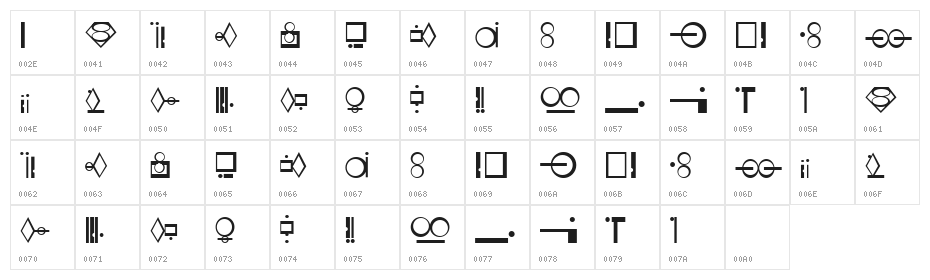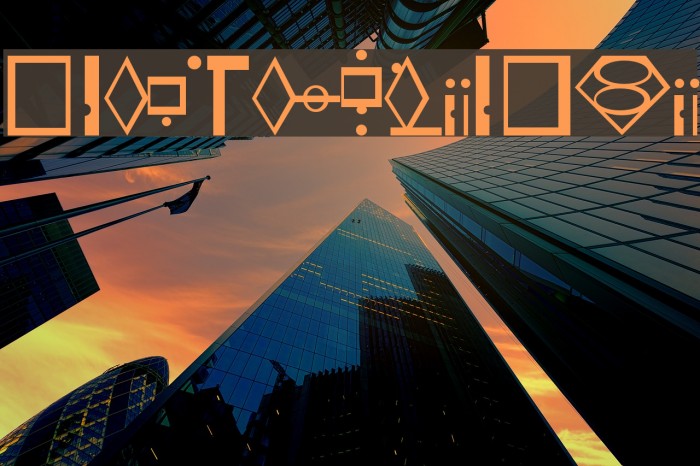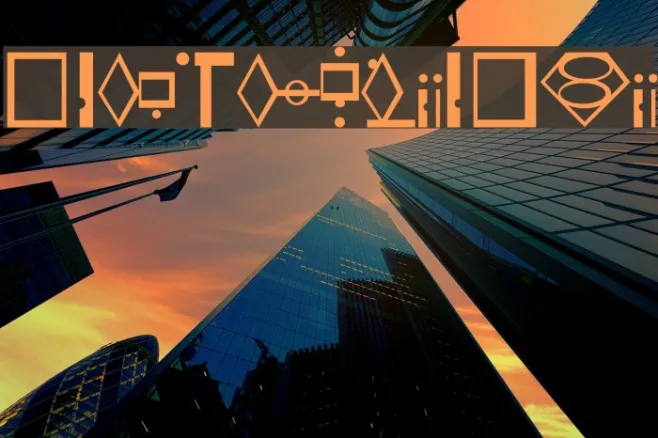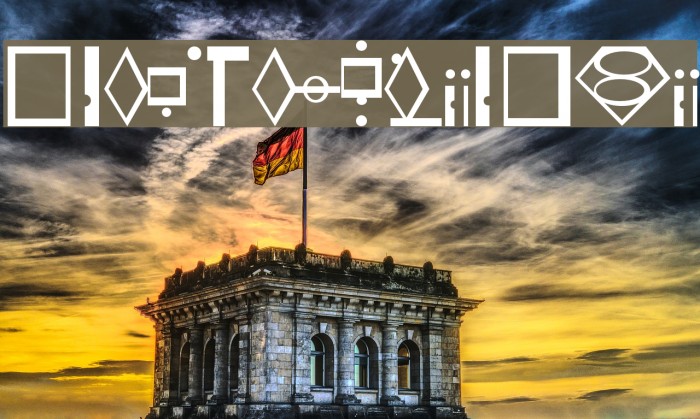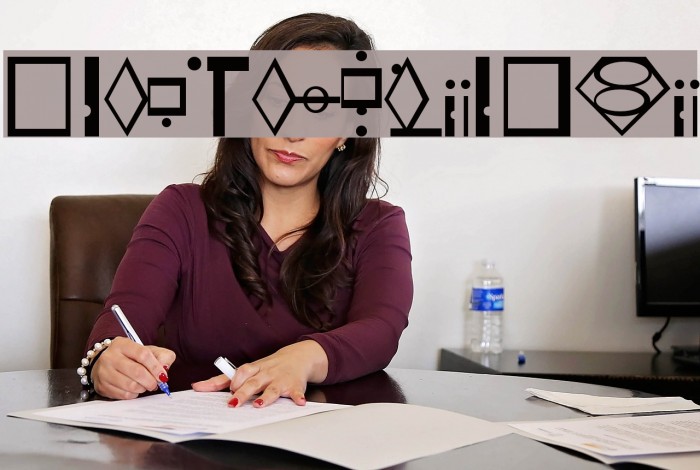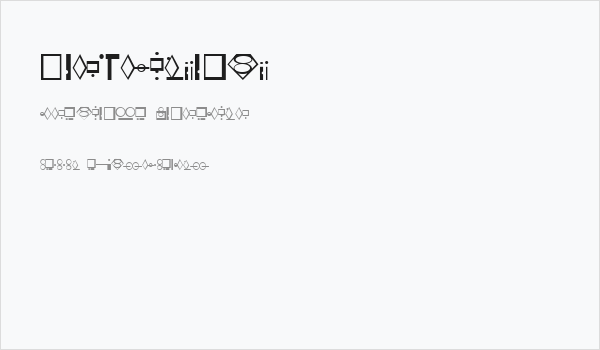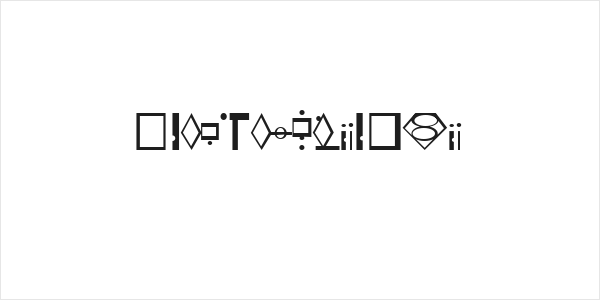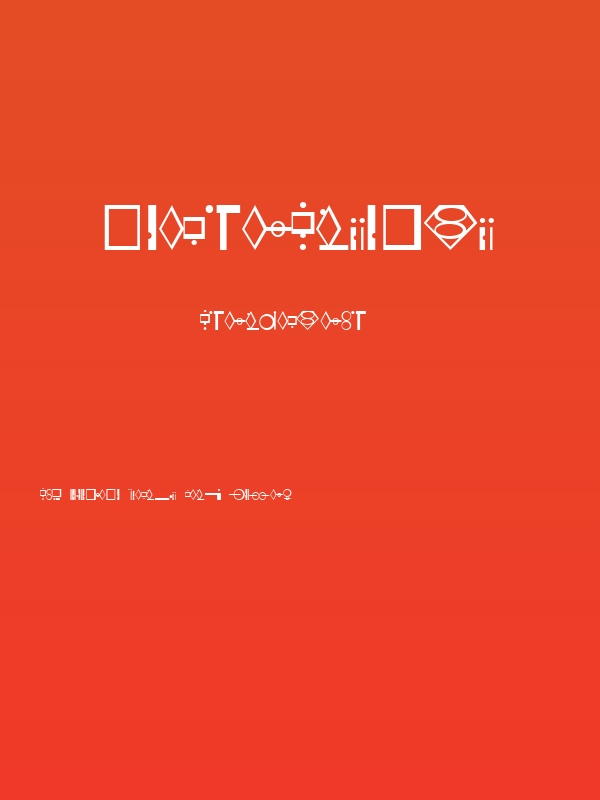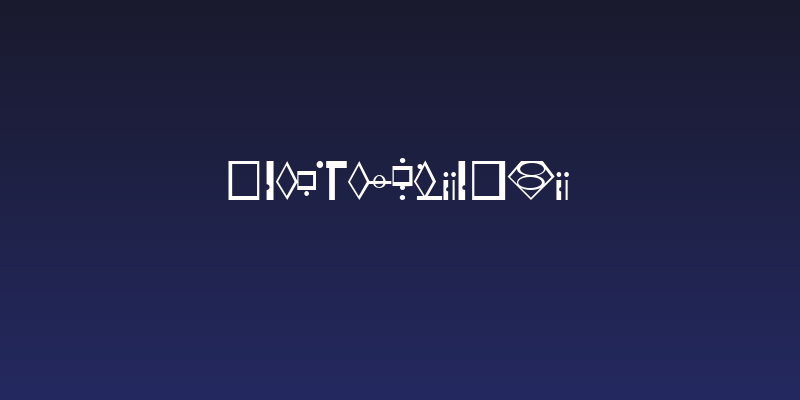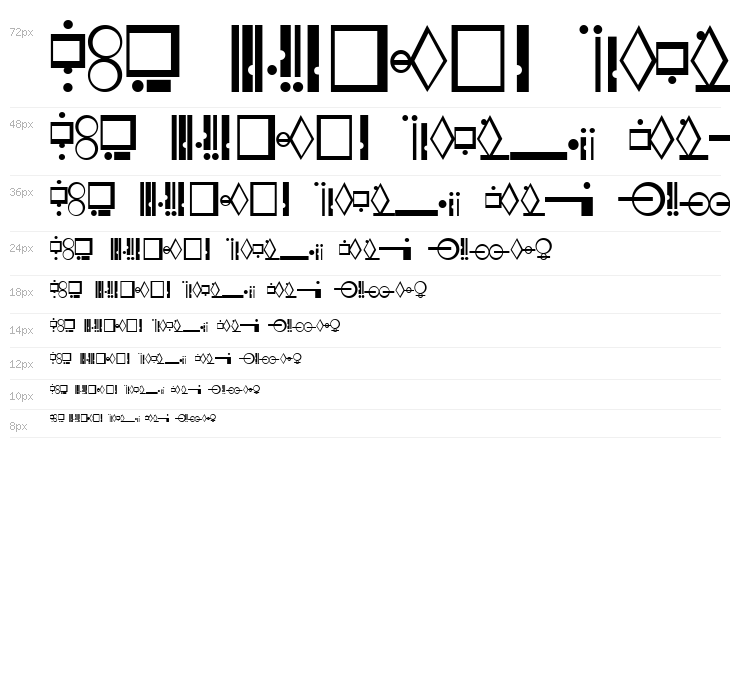
Kryptonian Font
Kryptonian Description
This font features a unique and intricate design, resembling a fictional or alien script. The characters are composed of geometric shapes such as circles, squares, and triangles, combined with lines and dots, creating a visually complex and decorative appearance. The style is reminiscent of a constructed language or cipher, often used in science fiction or fantasy contexts. The font lacks traditional alphabetical forms, instead offering a series of symbols that suggest a coded or symbolic language.
| Use Case | Logos, Themed designs, Fictional languages |
| Proposed Projects | Ideal for use in science fiction or fantasy projects, such as movie props, game design, or themed event decorations. |